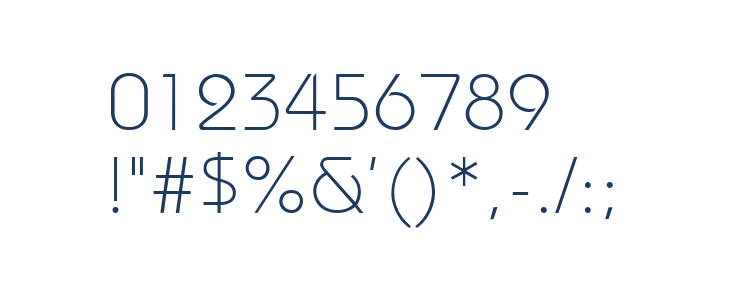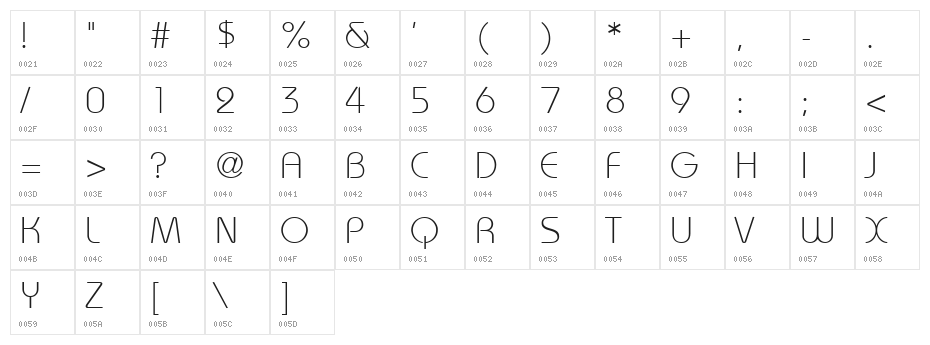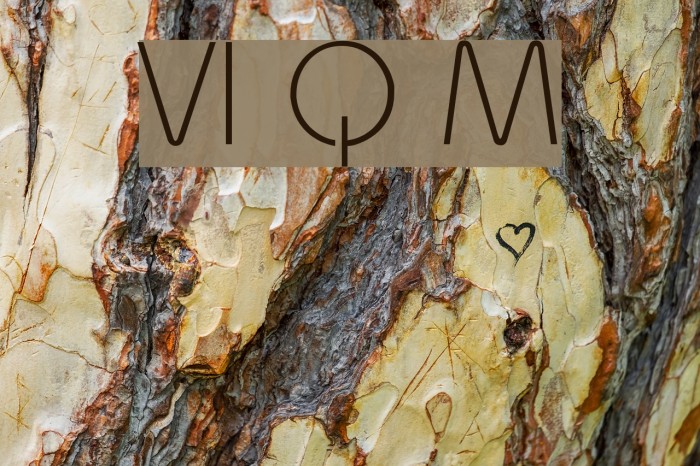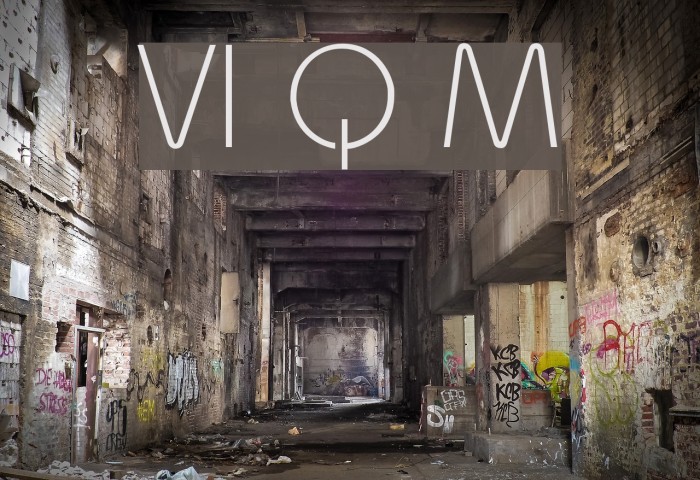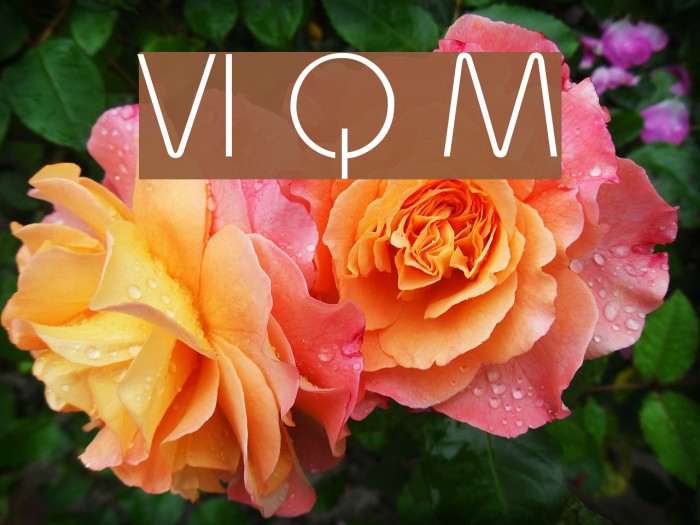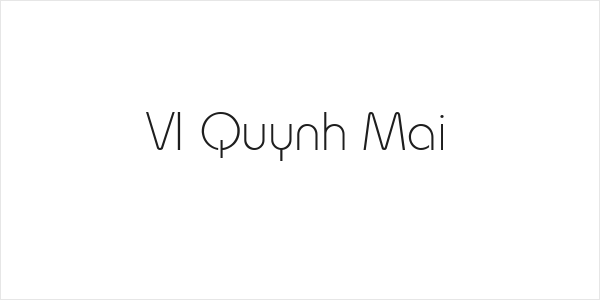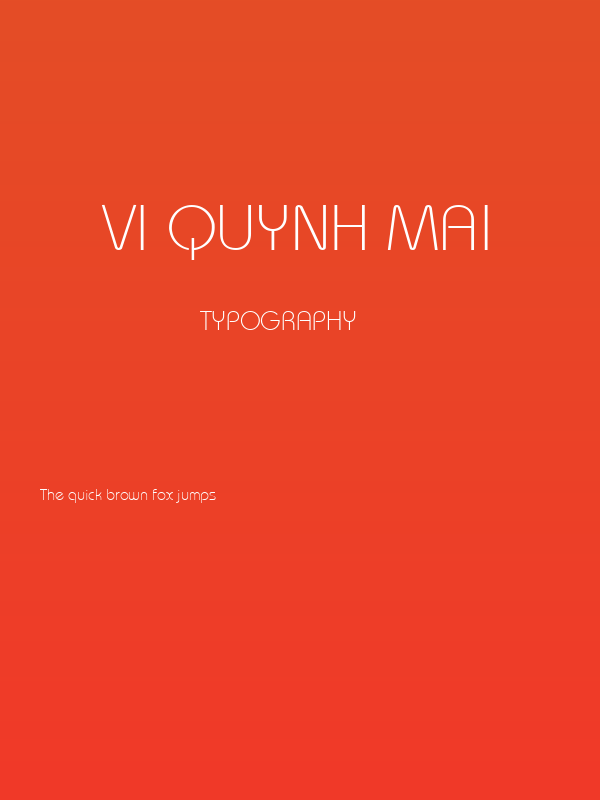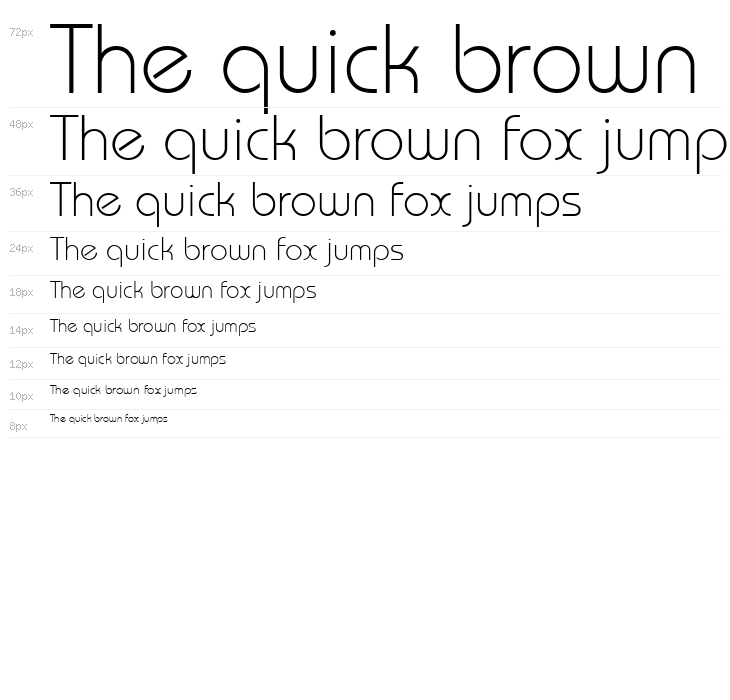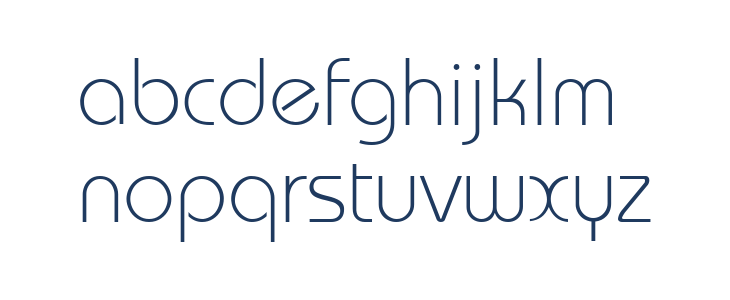
VI Quynh Mai Font
VI Quynh Mai Description
This font features a clean and modern design with a geometric structure. The characters are composed of smooth curves and straight lines, giving it a sleek and contemporary appearance. The uppercase letters are tall and uniform, while the lowercase letters maintain a consistent height, contributing to a harmonious look. The numerals are clear and easy to read, with a similar geometric style. Special characters are designed to match the overall aesthetic, ensuring visual coherence across all elements. The font's simplicity and elegance make it versatile for various design applications.
| Proposed Projects | Ideal for branding, editorial design, digital interfaces, and modern advertising campaigns. |